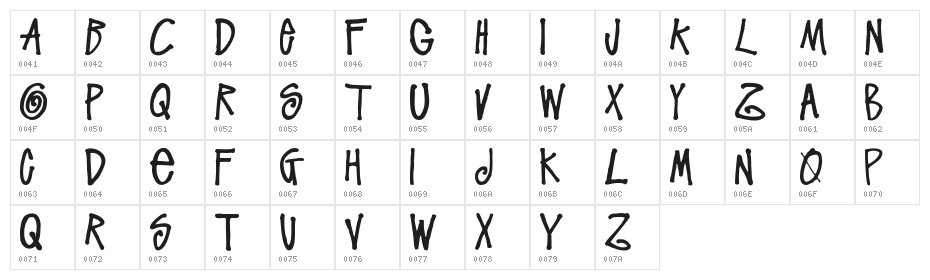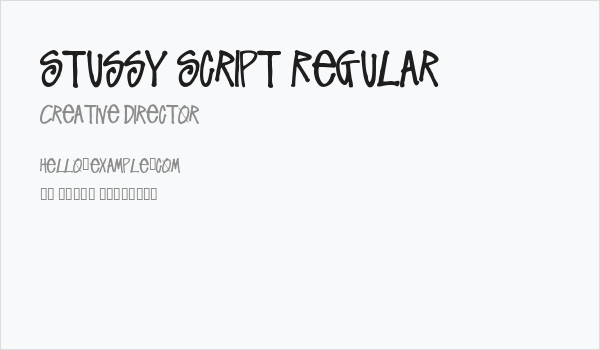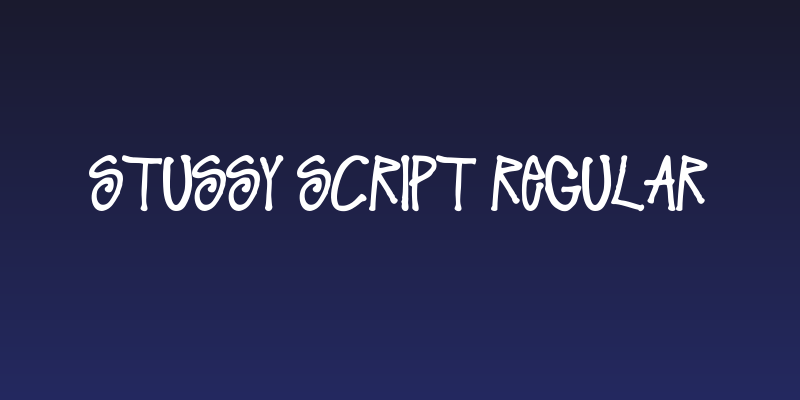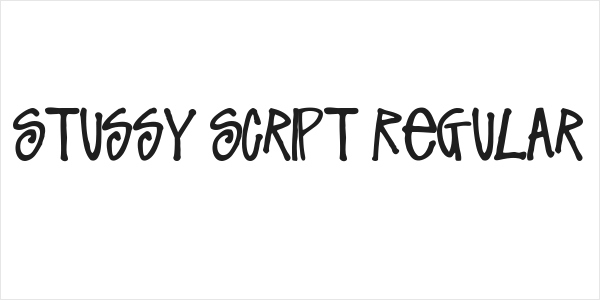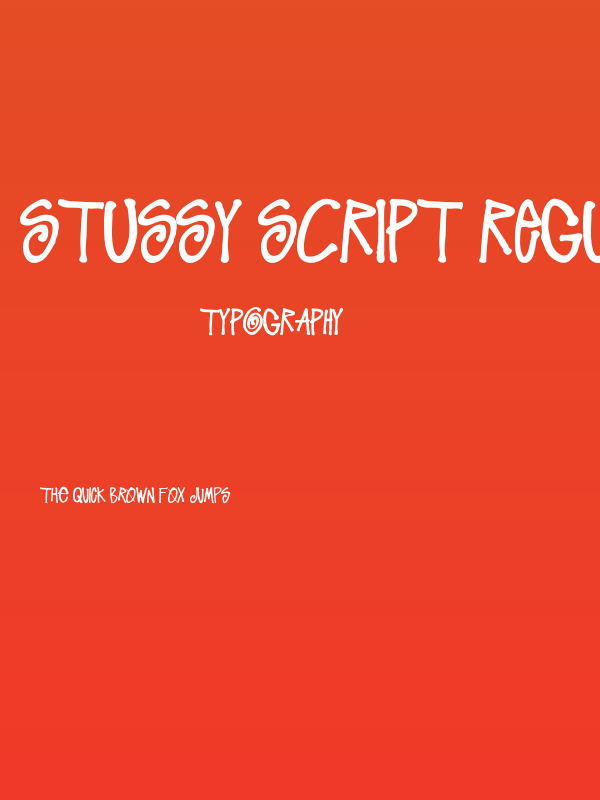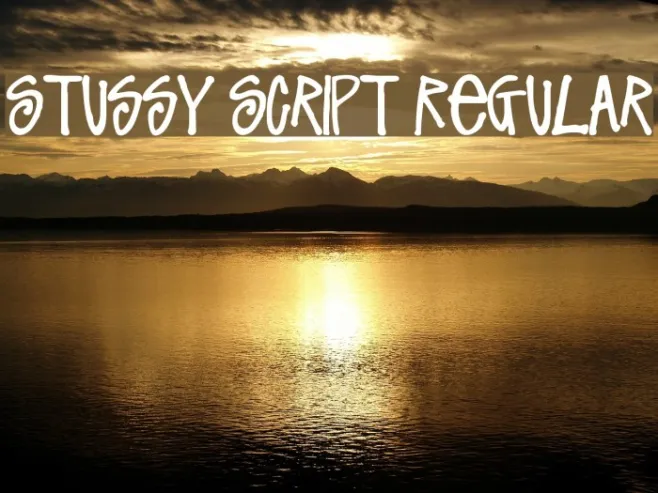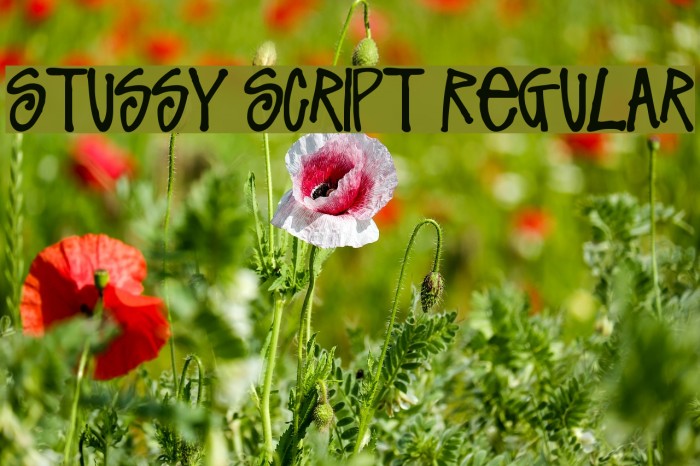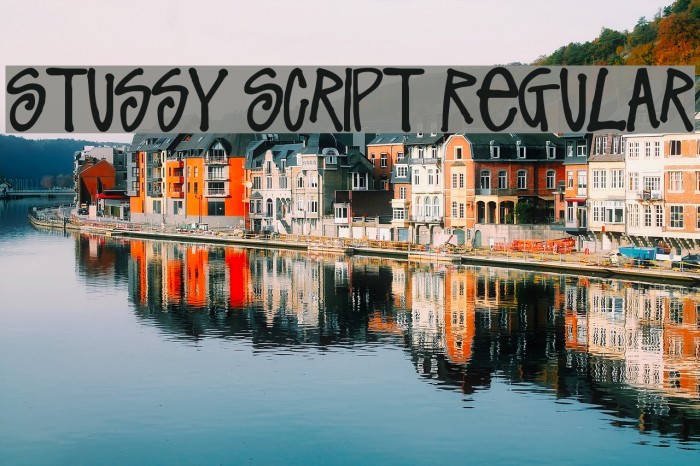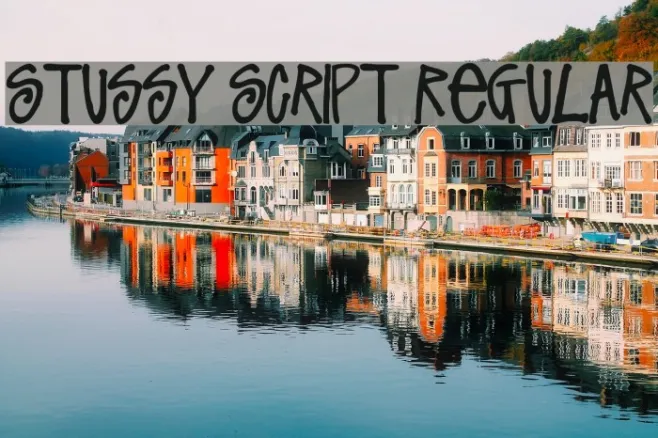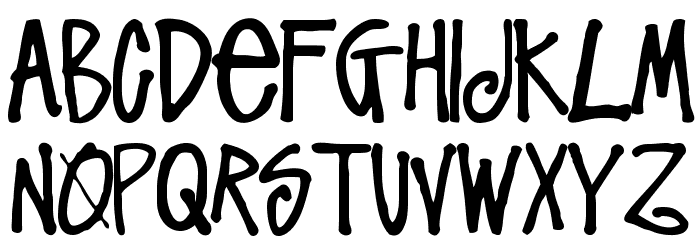
Stussy Script Regular Font
Stussy Script Regular Description
This font features a bold, graffiti-inspired script style with a playful and energetic vibe. The letters are characterized by their thick strokes and dynamic curves, giving them a hand-drawn appearance. The uppercase letters are particularly striking, with unique embellishments and exaggerated forms that add to the font's distinctive look. The lowercase letters maintain the same lively style, ensuring consistency across text. This font's design is perfect for projects that require a youthful and urban aesthetic, making it ideal for streetwear branding, music album covers, or event posters. Its bold presence ensures that it stands out in any application.
| Overall Style | Urban, Energetic, Playful |
| Proposed Projects | Streetwear branding, music album covers, event posters, urban-themed designs. |